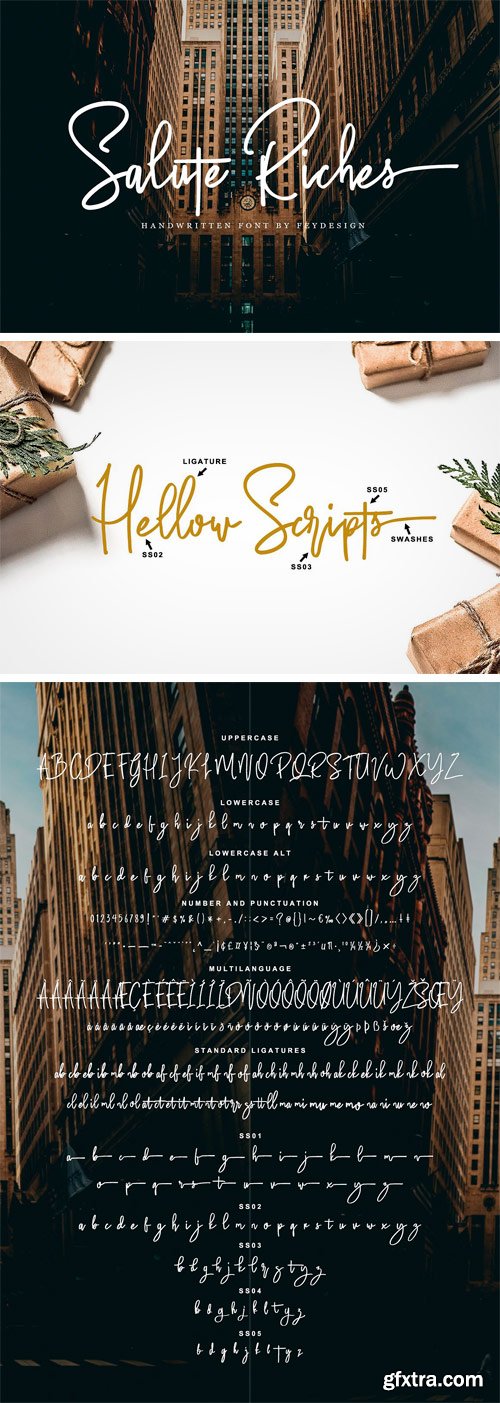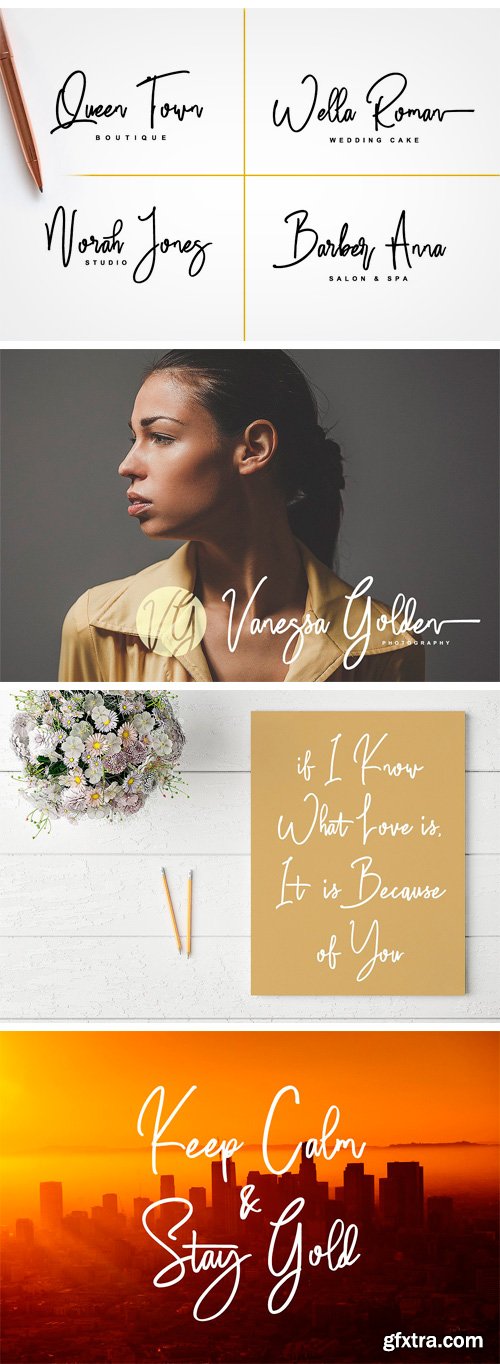
Salute Riches is Handwritten script font with handlettering pen Style, so much opentype feature include of the font. Suitable for design, element design, wedding, event, t-shirt, logo, badges, sticker, and awesome work, etc...